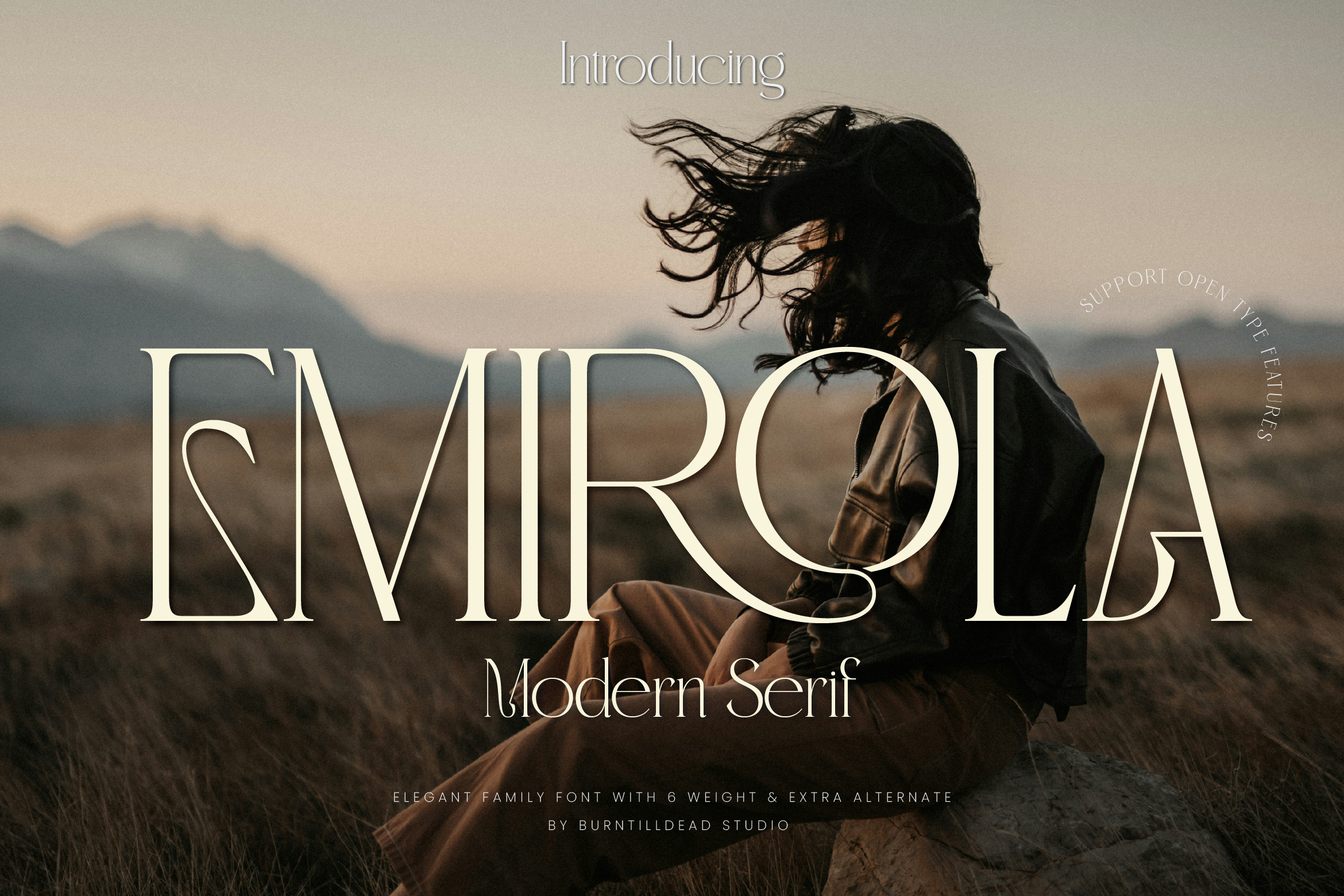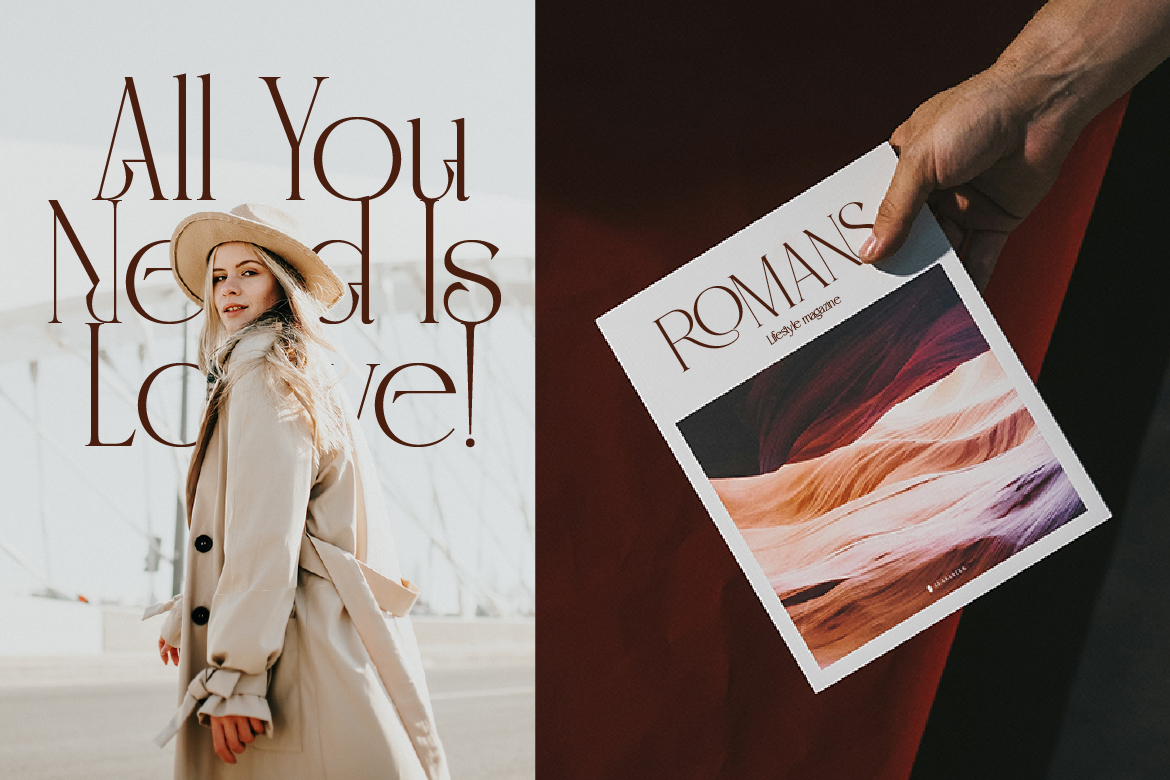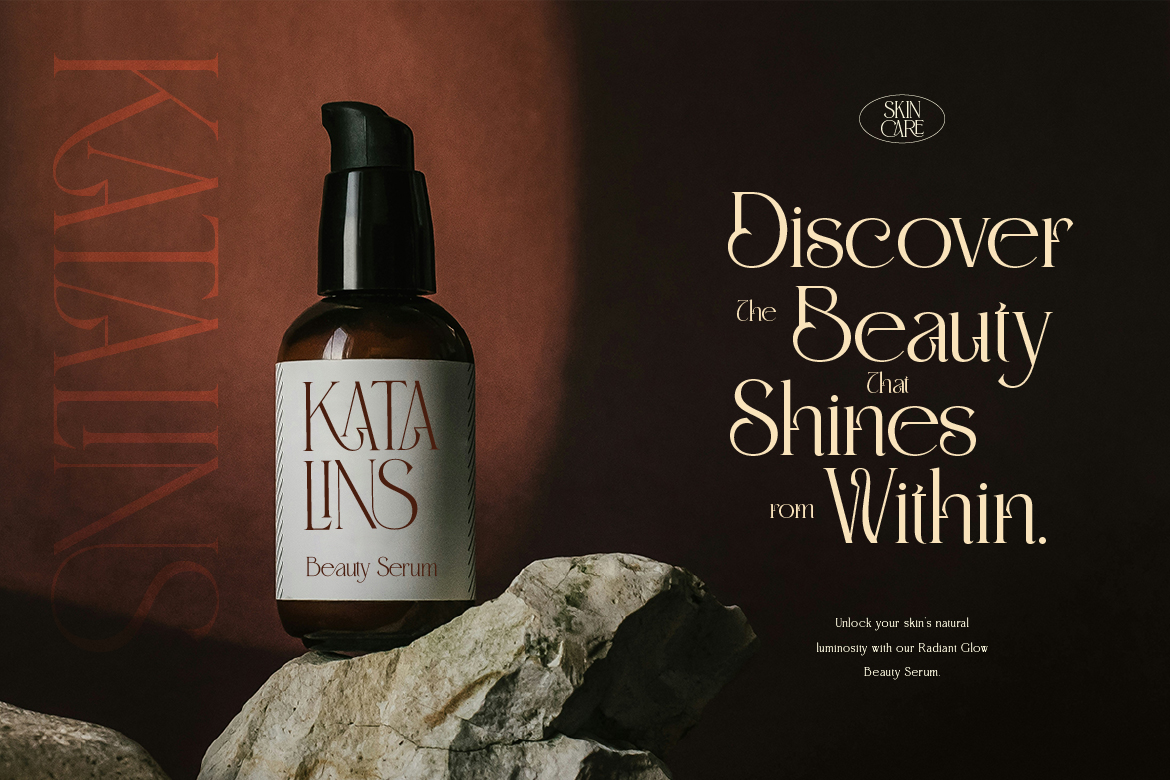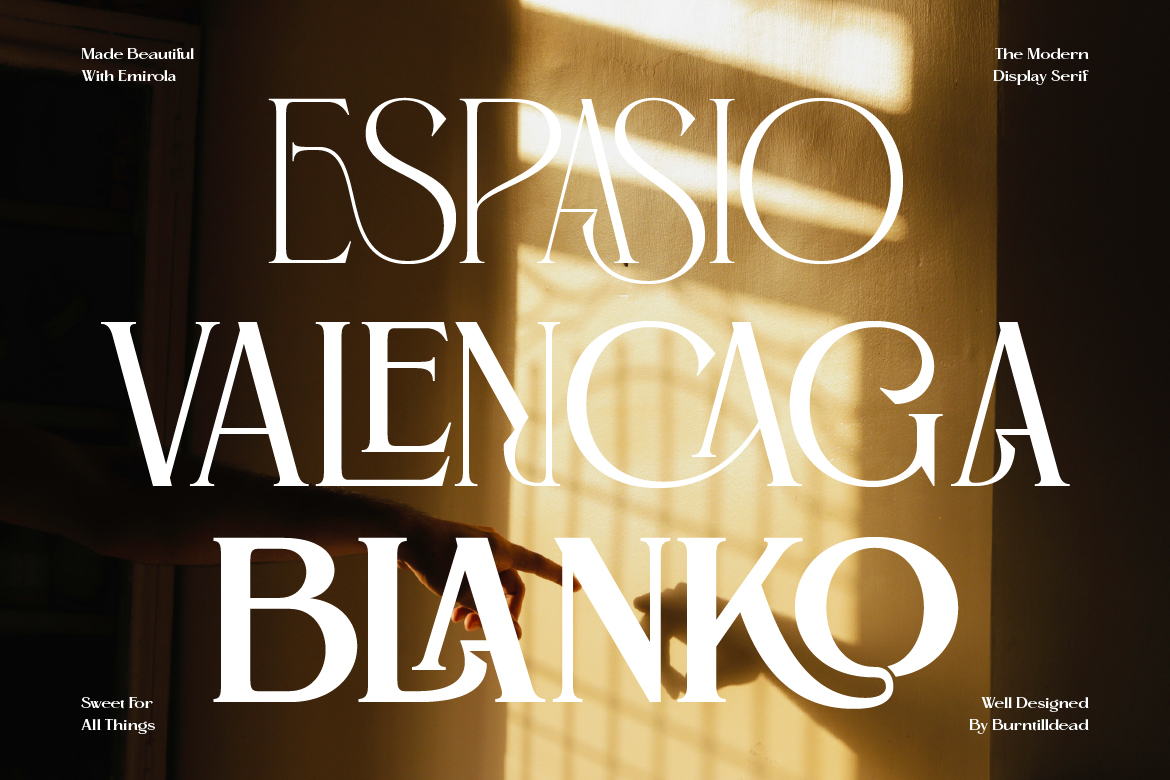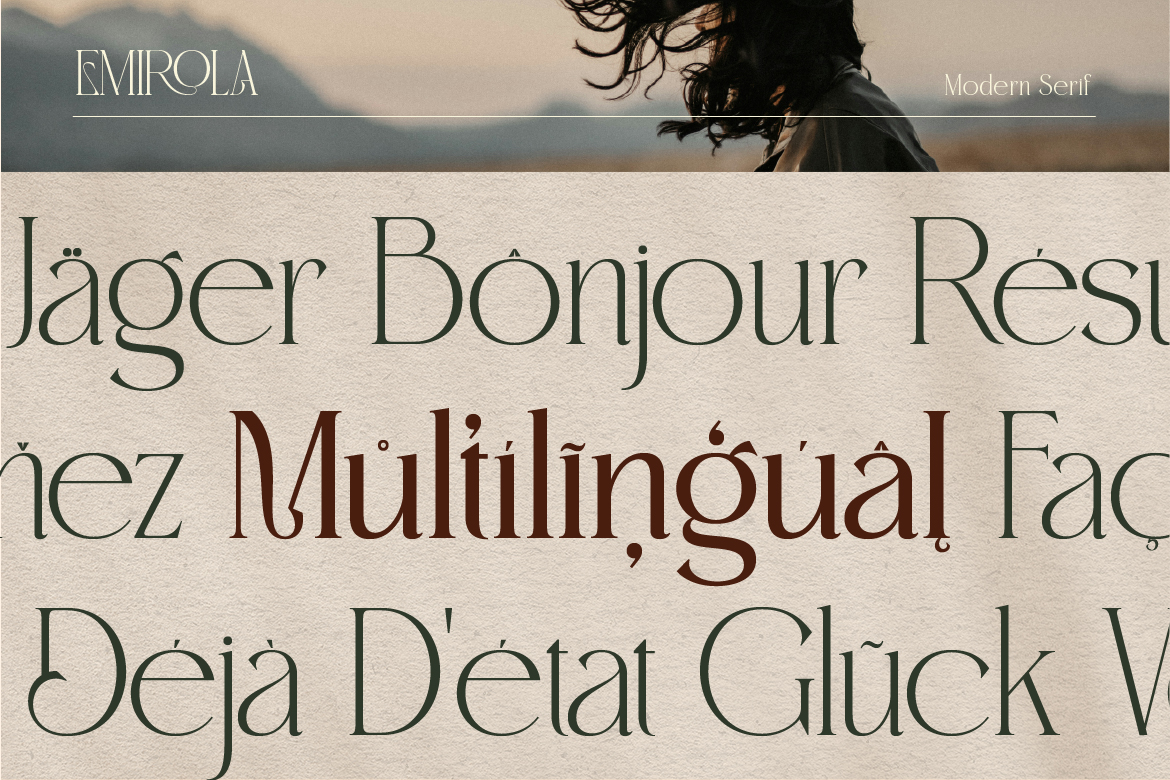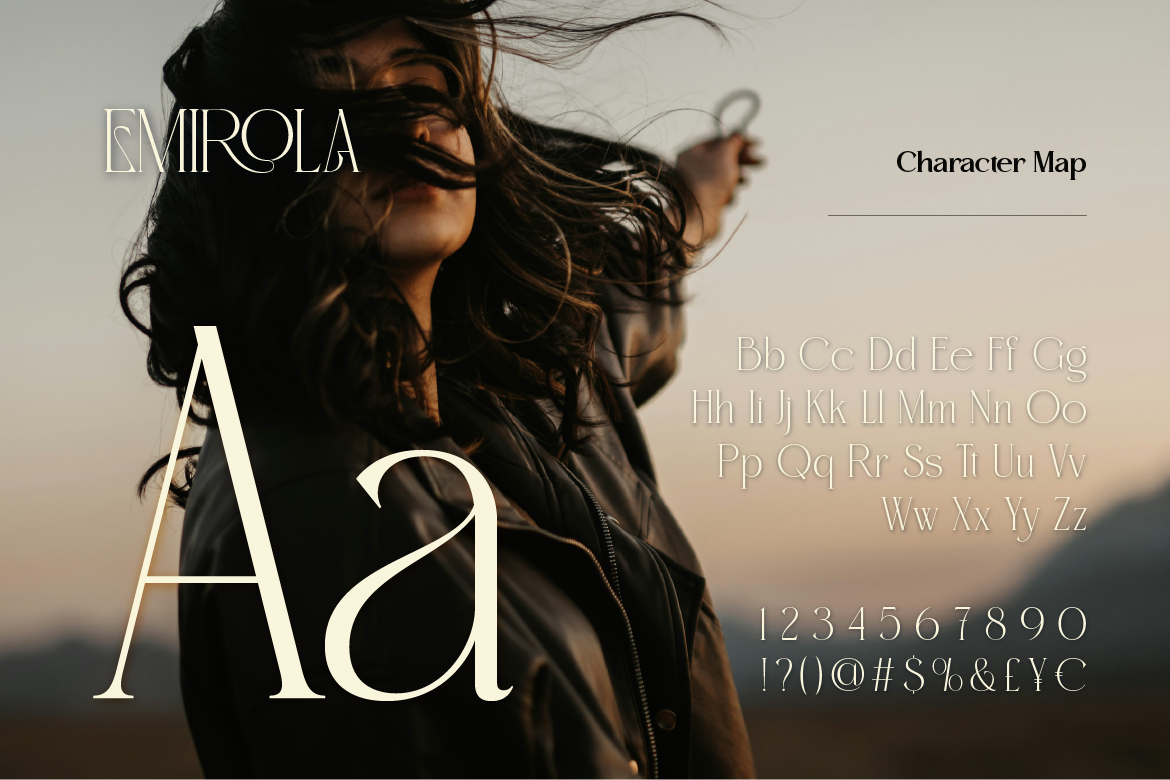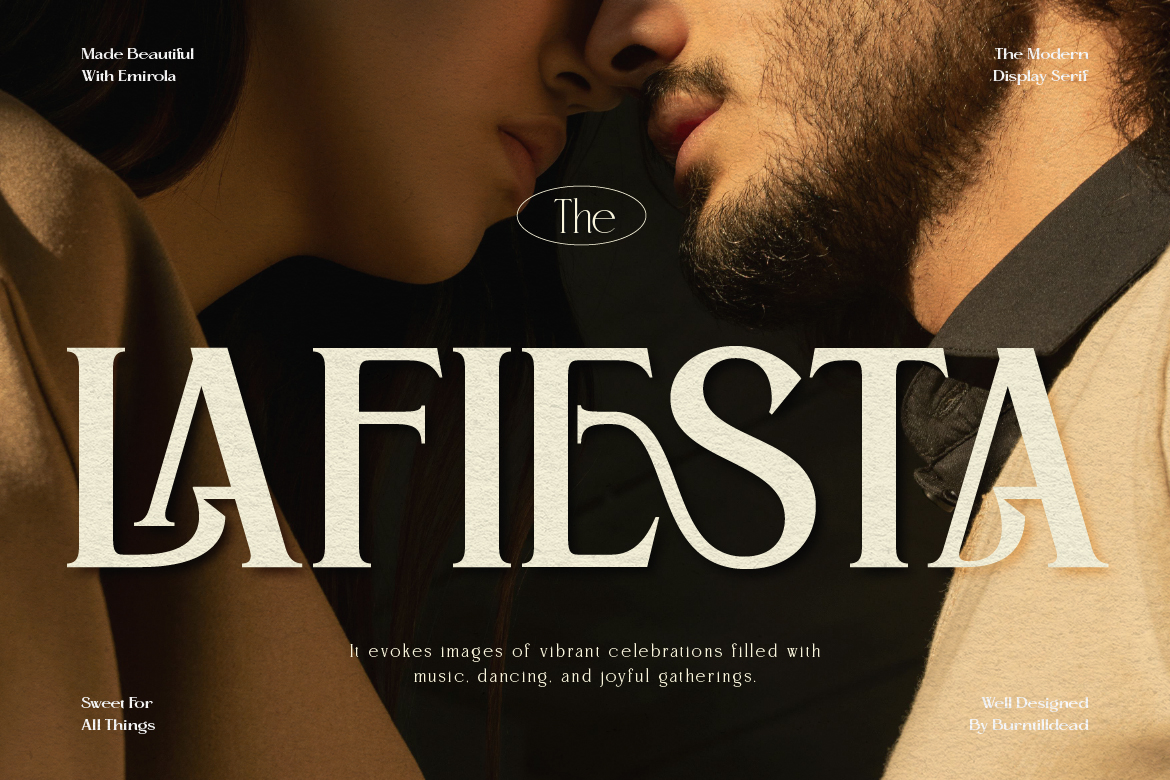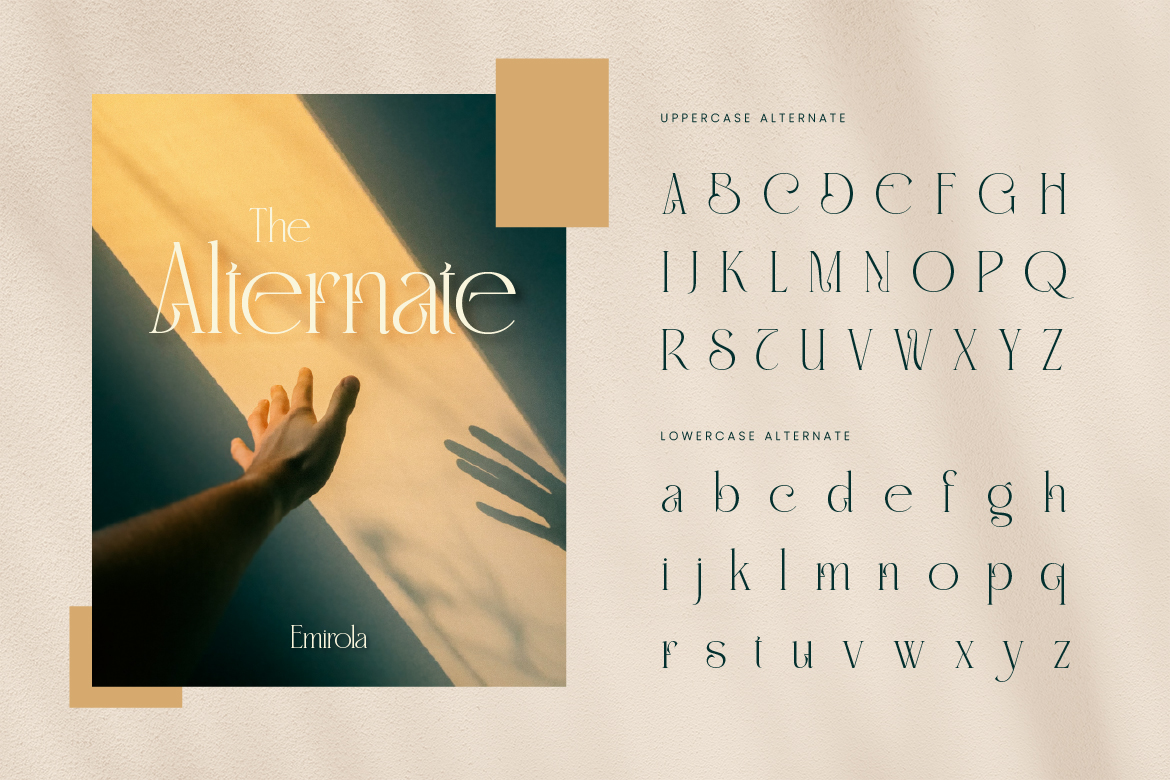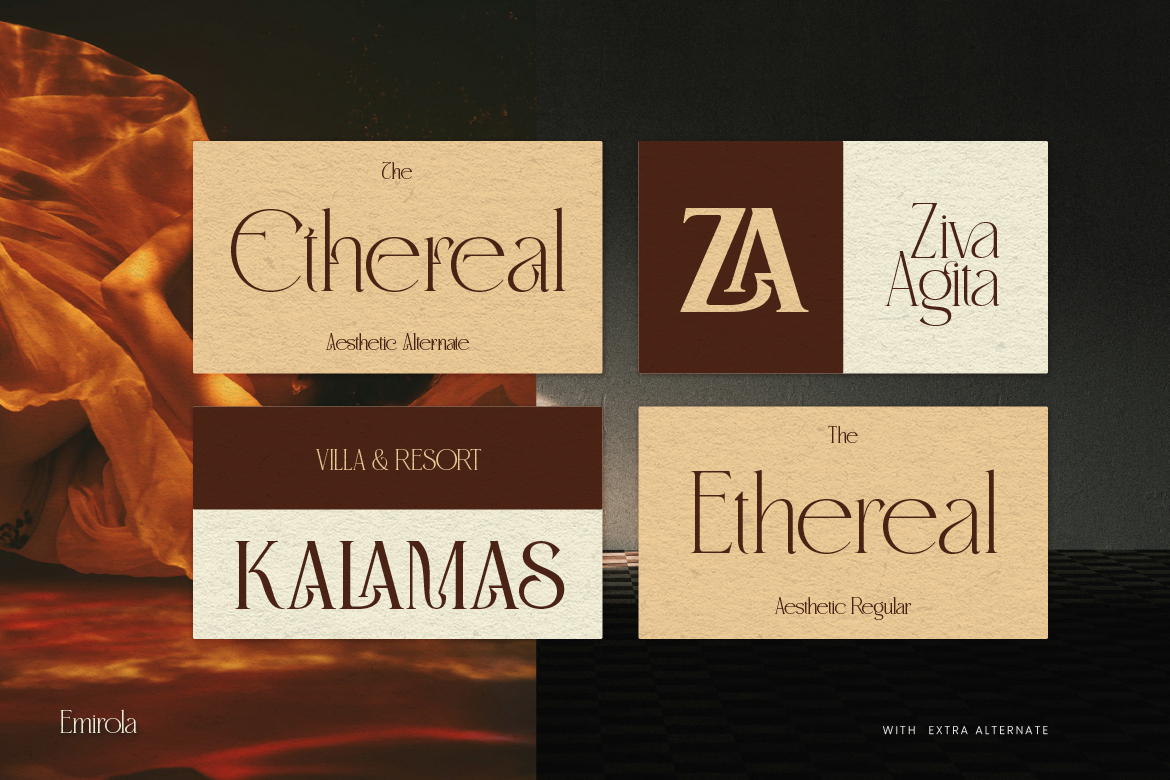
- Classic - Elegant
- Emirola
Introducing Emirola, modern and elegant serif with 6 weights. This family font perfect for high-end branding, editorial design, and luxurious invitations. With its refined strokes and classic serifs, this typeface brings a touch of timeless beauty to any project. Ideal for both digital and print media, it enhances readability while adding a layer of elegance and formality. Whether used for headlines or body text, this font family ensures your message is conveyed with style and clarity.
- A – Z set
- Ligature
- Alternate